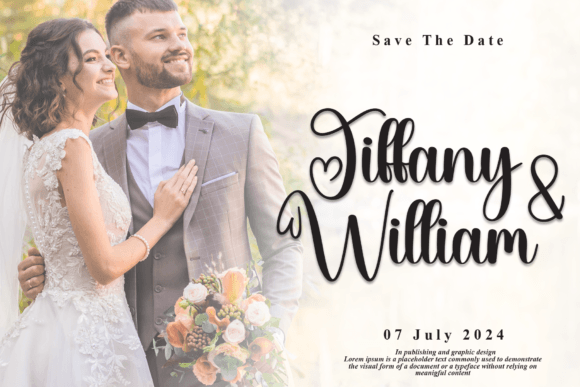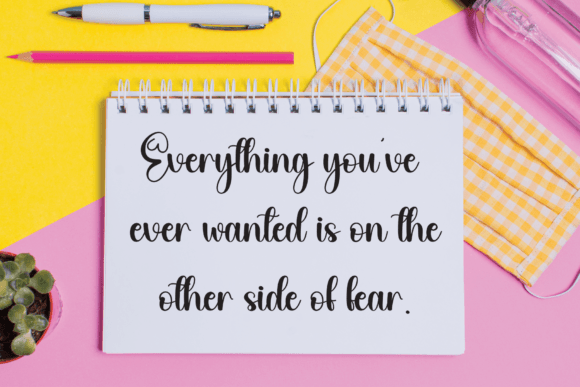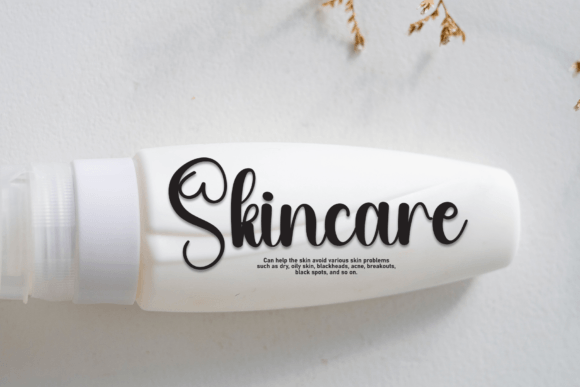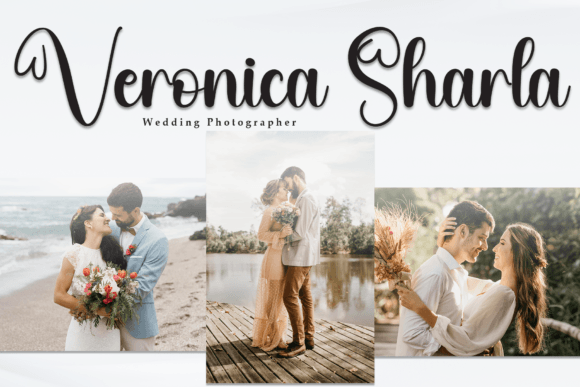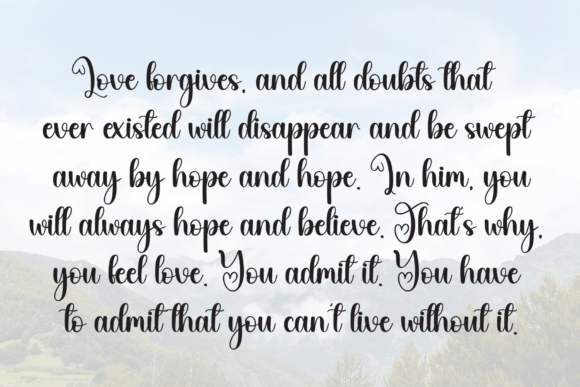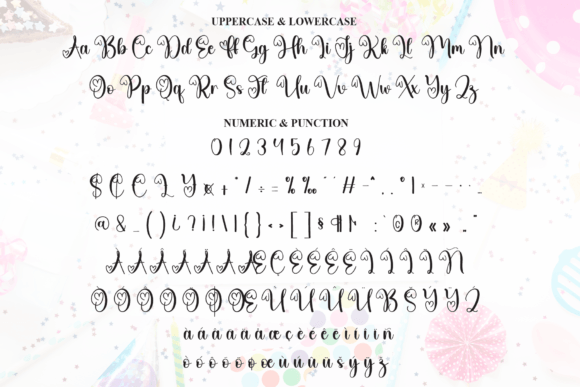
Introducing Birthday Font: The Perfect Addition to Your Celebratory Designs
Are you looking for a font that can add a personal touch to your text and make it stand out? Look no further than Birthday Font! This charming handwritten font is designed to bring a playful and celebratory feel to your designs, making it perfect for invitations, cards, and other celebratory materials.
The Characteristics of Birthday Font
Birthday Font is a beautiful example of a handwritten font that exudes warmth and personality. Its playful, flowing letters are designed to mimic the natural flow of handwriting, making it feel more approachable and intimate than traditional typography. The font features:
- Playful and whimsical feel: Birthday Font has a lighthearted and carefree vibe that’s perfect for celebrations and special occasions.
- Flowing letters: The font features connected letters that flow smoothly into one another, creating a sense of movement and fluidity.
- Handwritten charm: Birthday Font has a distinctly handwritten feel that’s perfect for adding a personal touch to your designs.
Uses for Birthday Font
Birthday Font is incredibly versatile and can be used for a wide range of design projects, including:
- Invitations: Use Birthday Font to create custom invitations for birthday parties, anniversaries, and other celebrations.
- Cards: Add a personal touch to your greeting cards with Birthday Font’s playful and charming letters.
- Celebratory materials: Use Birthday Font to create festive banners, signs, and other celebratory materials that are sure to make your event stand out.
- Digital designs: Birthday Font can also be used for digital designs, such as social media graphics, blog posts, and email newsletters.
Why Choose Birthday Font?
With so many fonts to choose from, why should you choose Birthday Font for your design projects? Here are just a few reasons:
- Unique and eye-catching: Birthday Font is a one-of-a-kind font that’s sure to grab attention and make your designs stand out.
- Easy to read: Despite its playful feel, Birthday Font is surprisingly easy to read, making it perfect for longer blocks of text.
- Customizable: Birthday Font can be customized to fit your design needs, allowing you to adjust the size, color, and style to suit your project.
Tips for Using Birthday Font
To get the most out of Birthday Font, here are a few tips to keep in mind:
- Use it sparingly: While Birthday Font is perfect for headings and titles, it can be overwhelming if used for longer blocks of text. Use it sparingly to create visual interest and emphasis.
- Experiment with colors: Birthday Font looks great in a variety of colors, so don’t be afraid to experiment and find the perfect hue for your design.
- Pair it with other fonts: Birthday Font can be paired with other fonts to create a unique and visually interesting design. Try pairing it with a clean sans-serif font for a bold and modern look.
Birthday Font is a charming and versatile font that’s perfect for designers and crafters looking to add a personal touch to their designs. With its playful, flowing letters and handwritten charm, it’s sure to make your designs stand out and leave a lasting impression. Whether you’re creating invitations, cards, or celebratory materials, Birthday Font is the perfect choice.